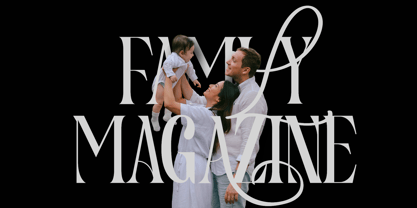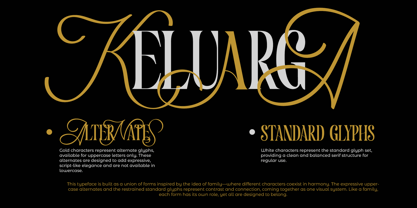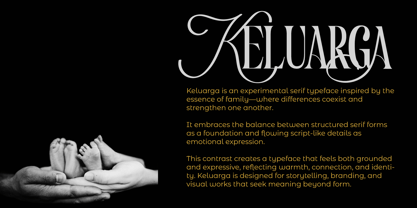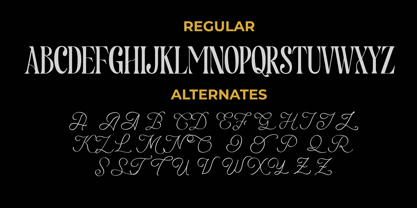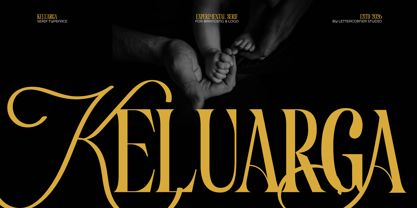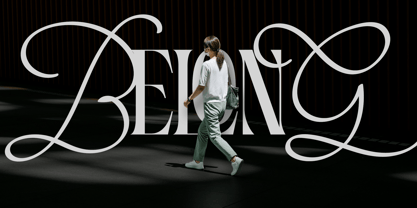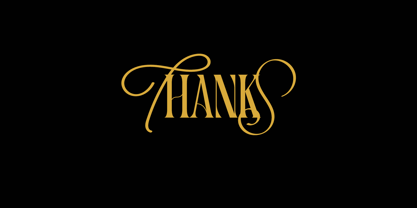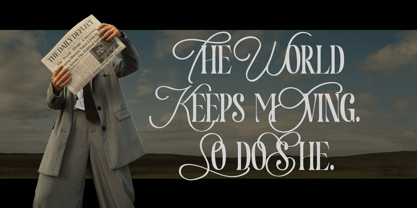
Keluarga
Keluarga is an experimental display serif inspired by the Indonesian word keluarga, representing togetherness, connection, and continuity. The typeface blends classical serif foundations with expressive, experimental details—featuring strong contrast, soft curves, and flowing decorative forms. Designed for branding, logos, editorial headlines, and posters, Keluarga delivers a refined yet emotional presence. It balances structure and expression, making it ideal for visual projects that seek character, warmth, and a strong sense of identity.